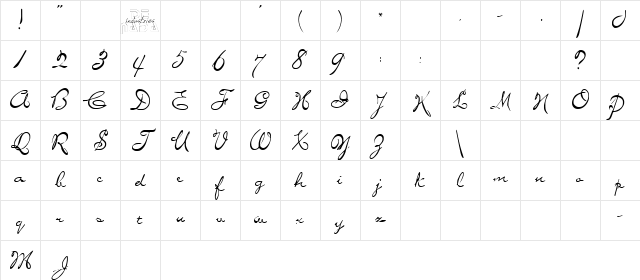
Yahoo 1 Regular Free Font
Yahoo 1 Regular
Design Context for Yahoo 1
Yahoo 1 is a composed and adaptable typeface that performs quietly and consistently across a wide range of design contexts.